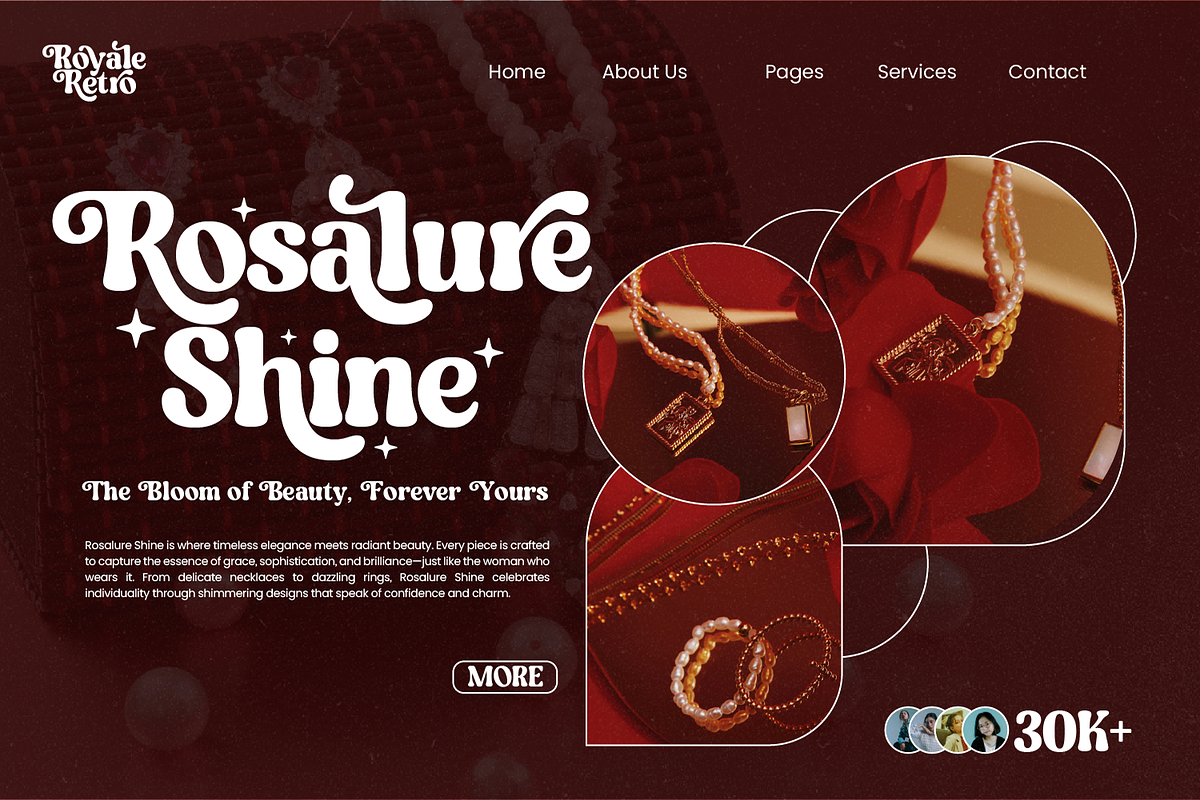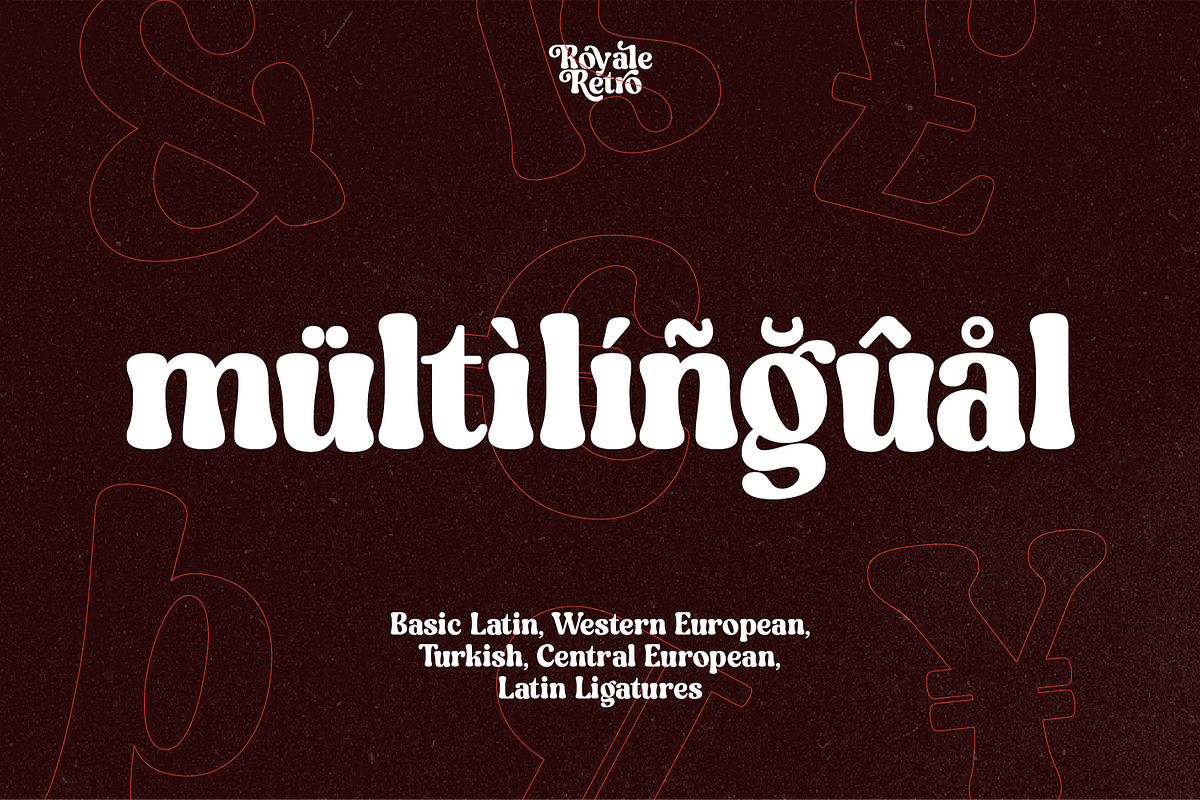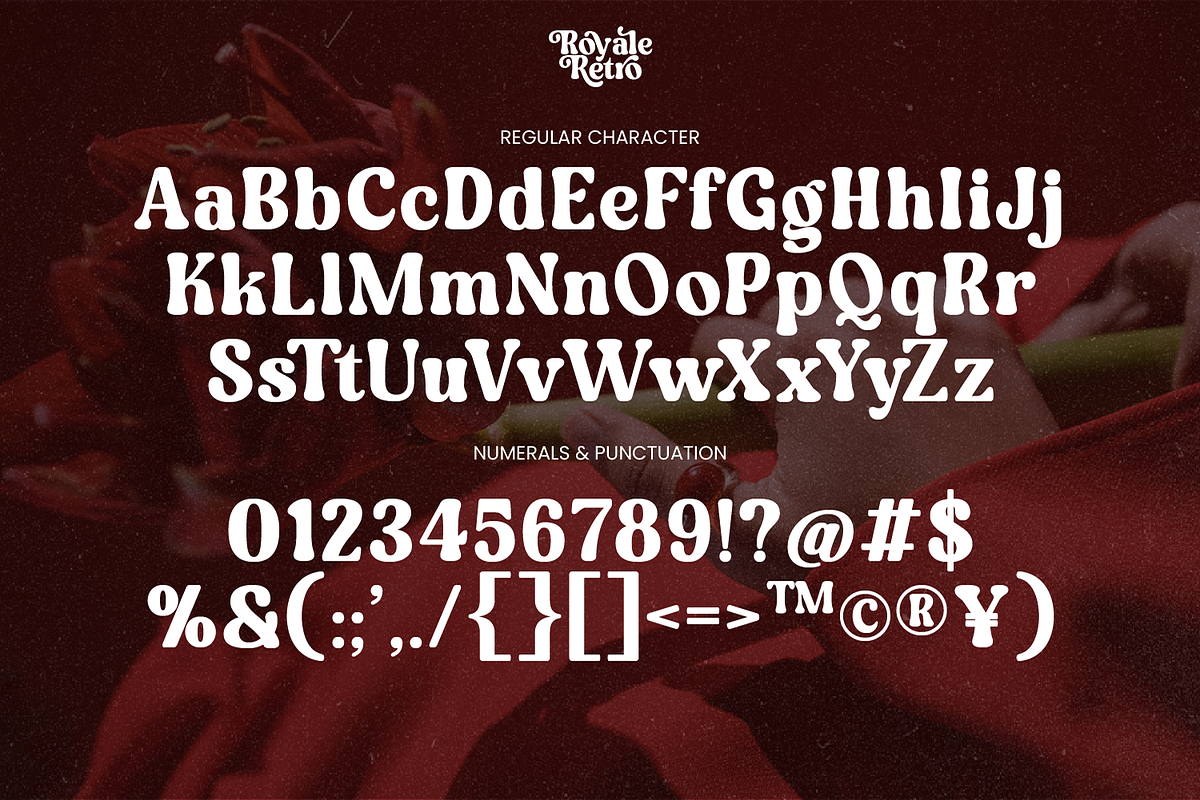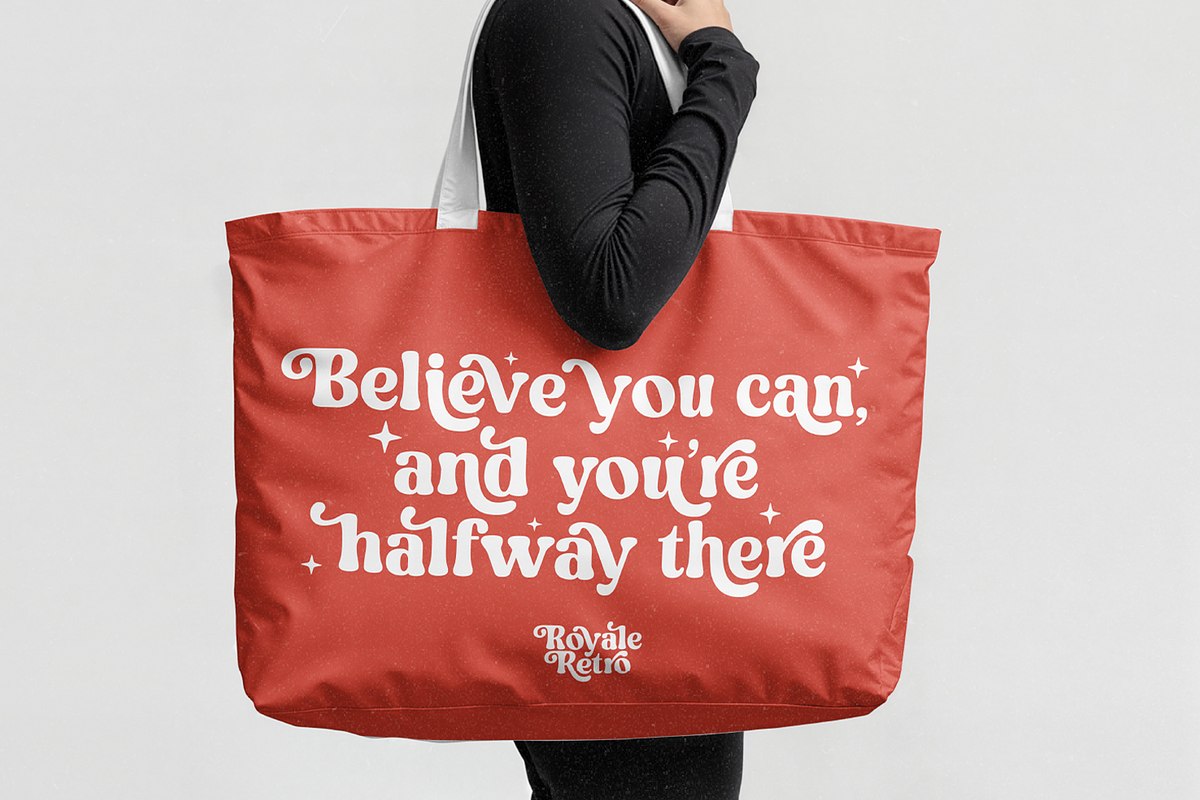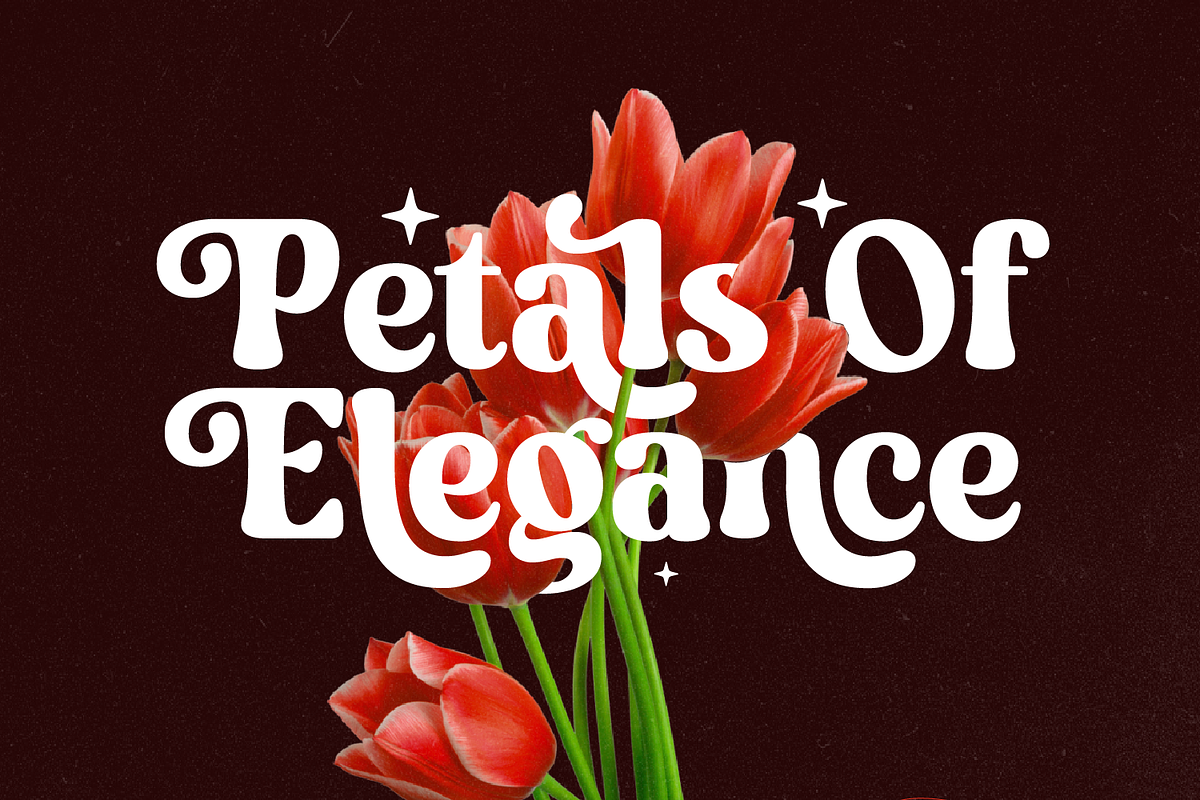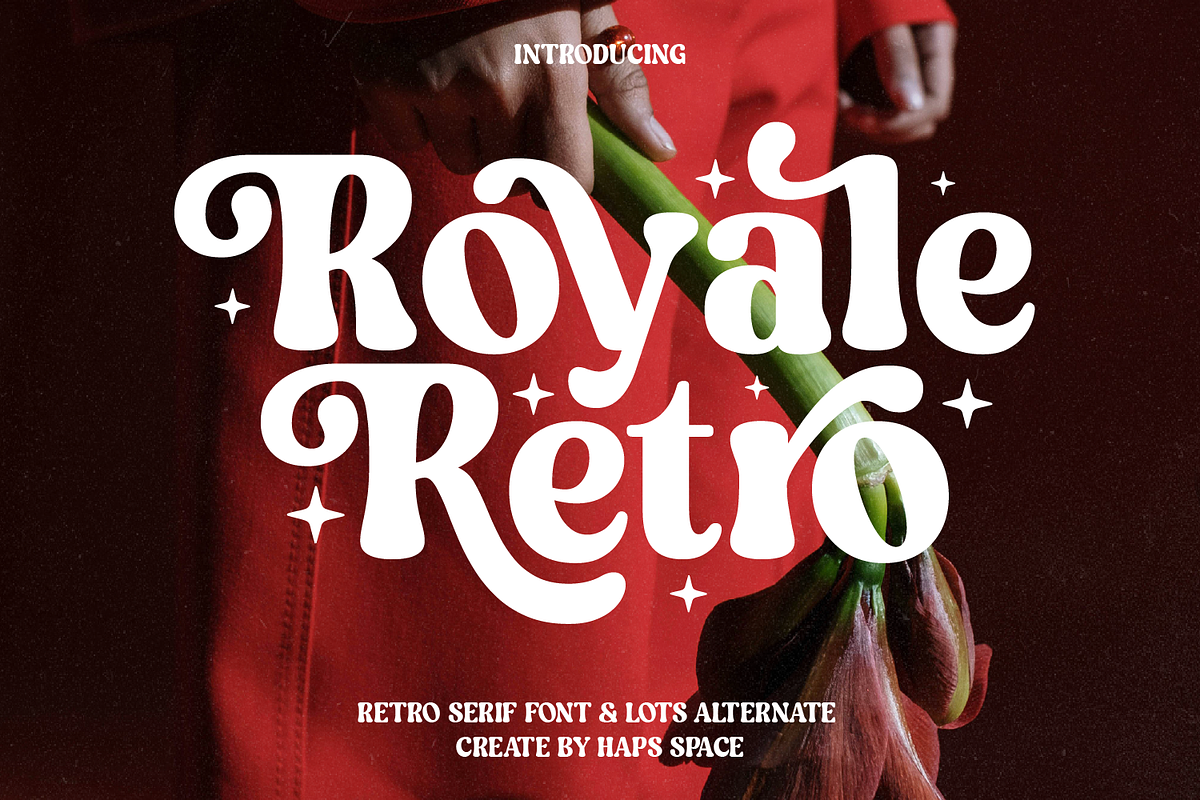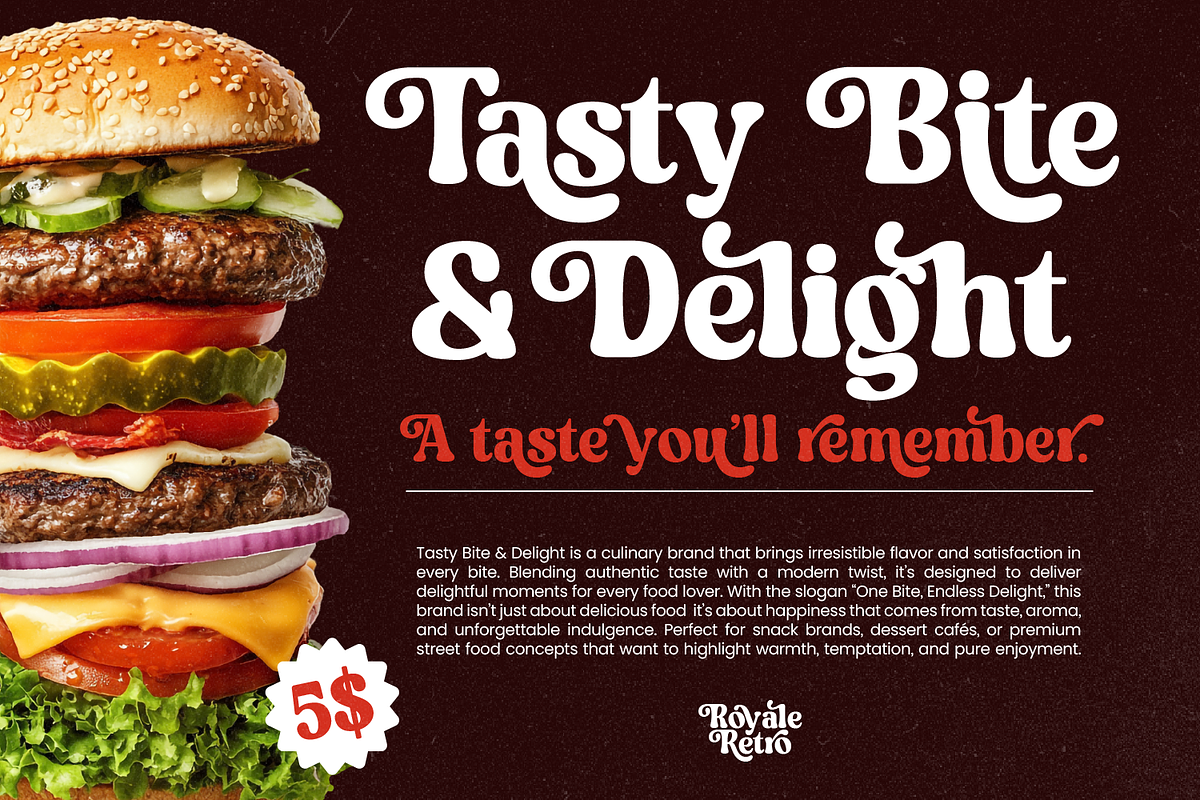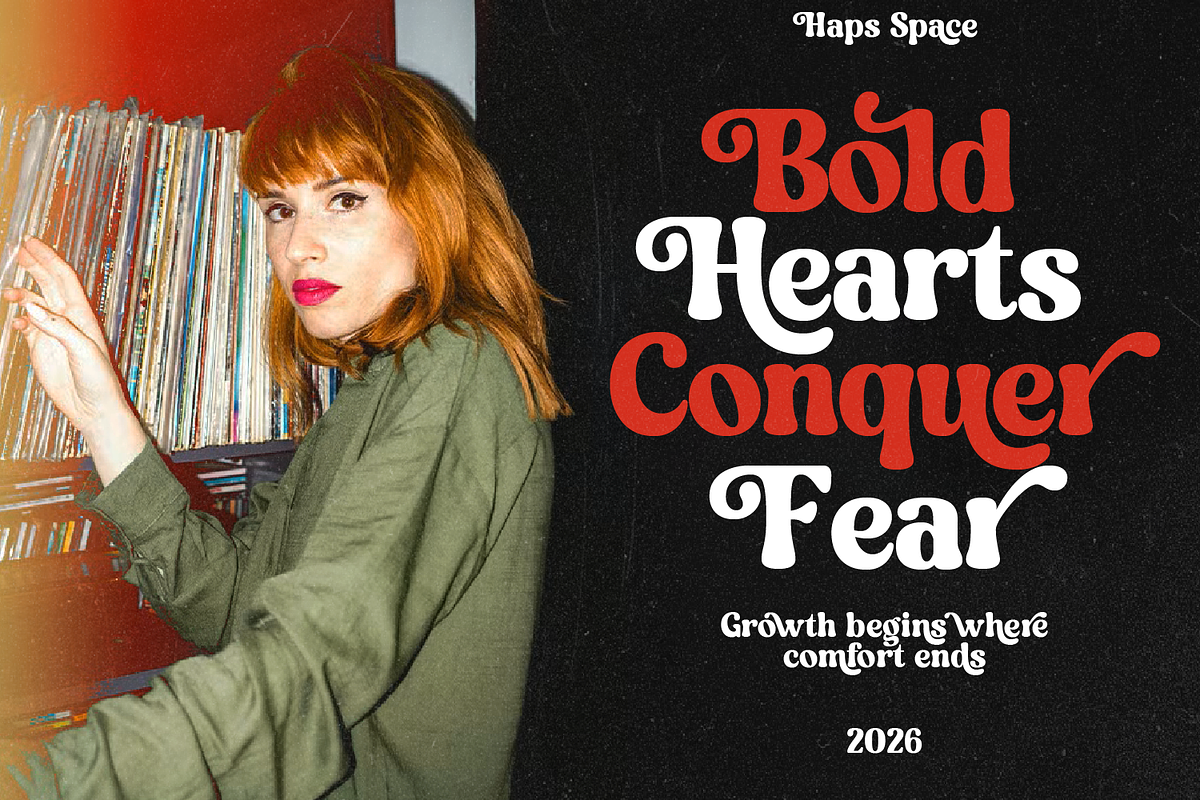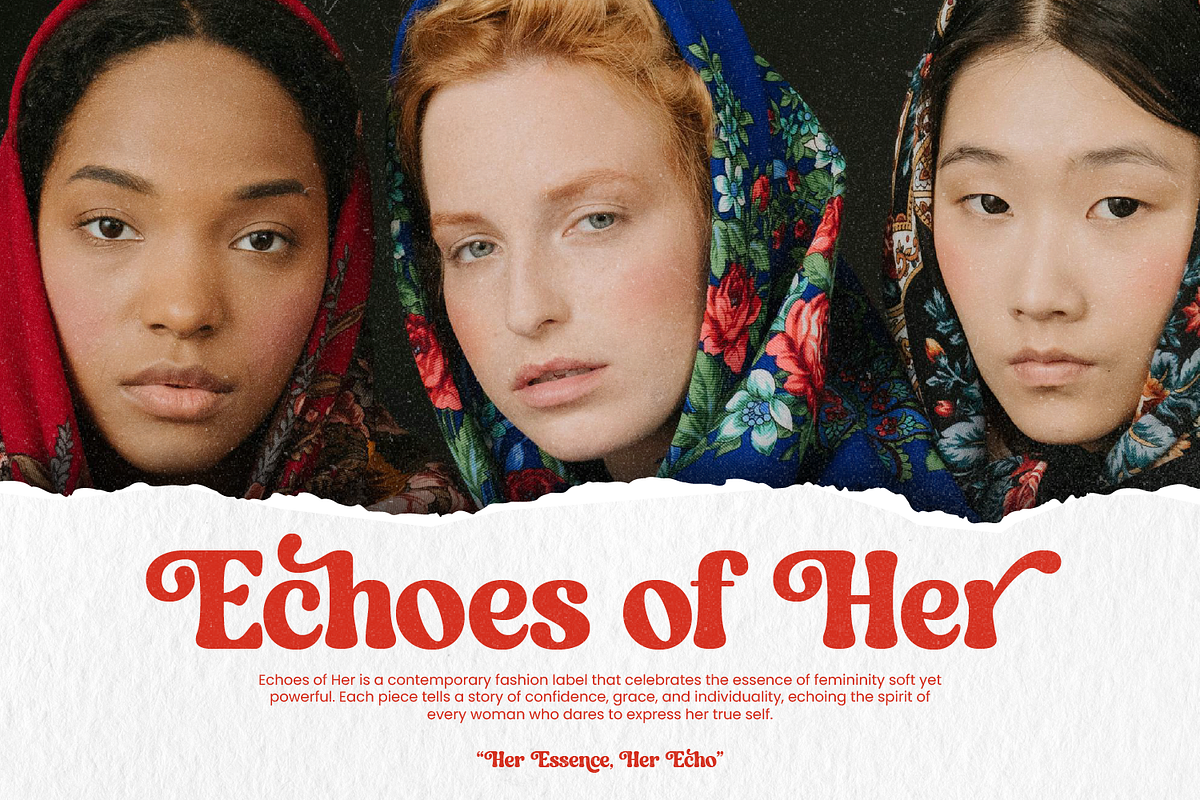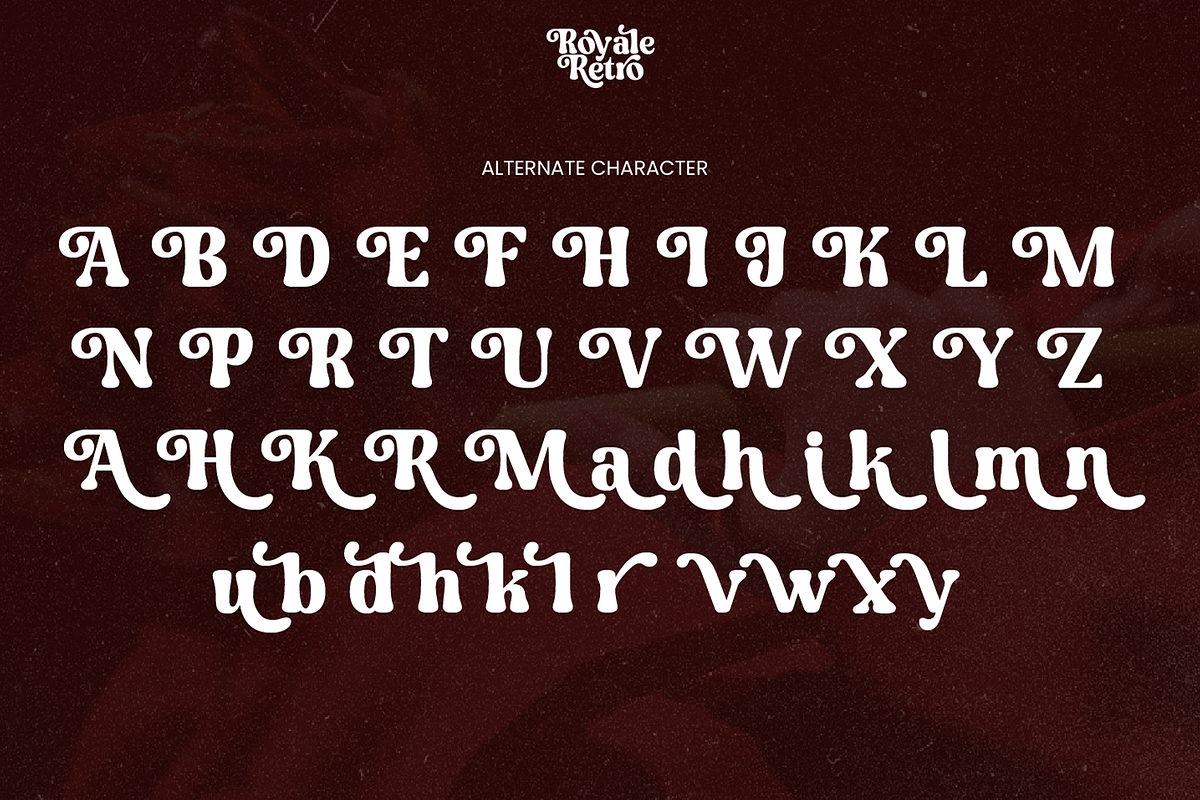
Royale Retro Whimsical Vintage Serif
Royale Retro is a bold, playful serif font that perfectly captures the groovy essence of the 1970s while staying relevant for contemporary design trends. Featuring soft, thick strokes and a vast array of stylish alternates, this font allows you to create high-impact headlines that feel bespoke and full of character.
Whether you are working on a nostalgic branding project, a vibrant social media campaign, or a Y2K-inspired editorial layout, Royale Retro offers the versatility and charm needed to make your text pop. Its whimsical ligatures and sparkling ornaments make it an ideal choice for display purposes where personality is key.
Ideal For:
- Brand Identity: Creating memorable logos for lifestyle and fashion brands.
- Social Media: Designing eye-catching quotes and vibrant Instagram posts.
- Editorial Layouts: Adding a playful vintage touch to magazine headers and titles.
- Merchandise: Perfect for Poster designs, stickers, and bold packaging.
* Full multilingual character set
* OpenType features such as ligatures and alternates